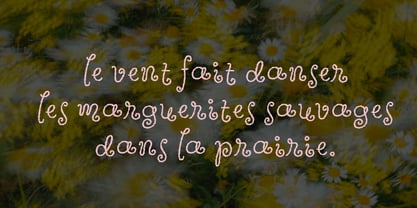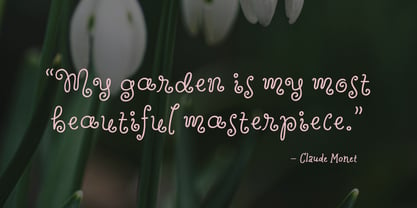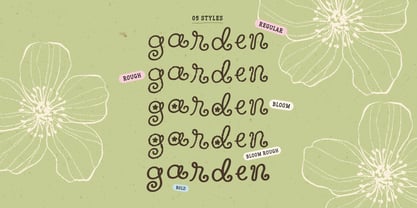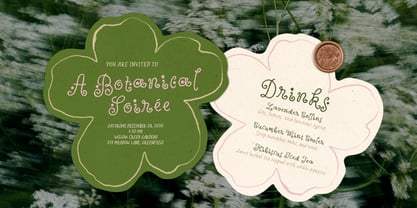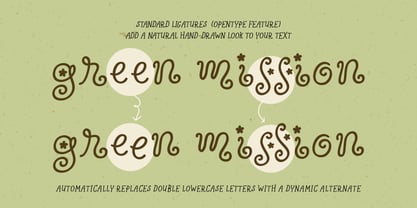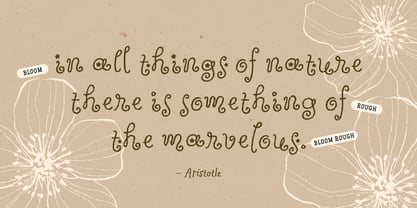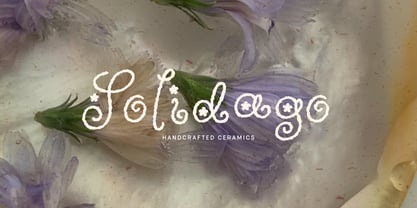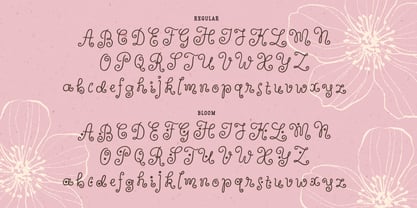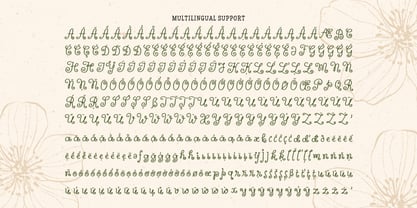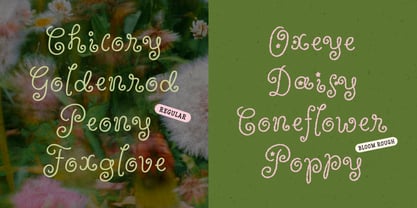
Wildflower Garden
by type peace
The Wildflower Garden Font Family was designed by Hai Anh Nguyen and published by type peace. Wildflower Garden contains 5 styles and family package options. More about this family
Inspired by the liveliness of nature, Wildflower Garden is a whimsical, swirly hand-drawn font family. Featuring five styles, it brings a playful, organic look to any design. Perfect for editorial titles, packaging, invitations, posters, and expressive branding.
The font automatically replaces double lowercase letters with an alternate version to create a more natural hand-drawn look. If this feature isn't applied automatically, enable the Standard Ligatures option.
Wildflower Garden